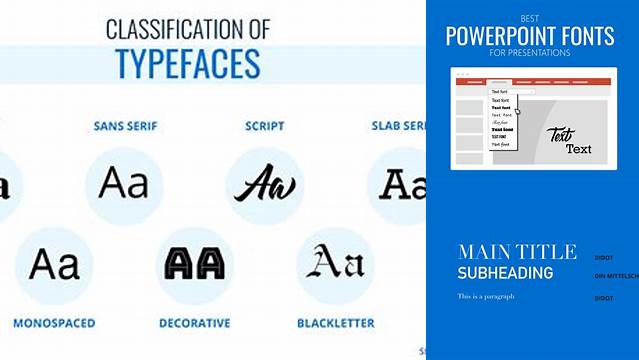
Top PowerPoint Fonts For Presentations In 2025
Best Fonts for PowerPoint Presentations in 2025
Hey everyone! Let's talk about something super important when you're putting together a PowerPoint: fonts! Choosing the right fonts can seriously make or break your presentation. It's like picking the perfect outfit – it can either make you look totally on point or leave you feeling a bit, well, off. So, in this article, we're diving into the best fonts for PowerPoint presentations in 2025, helping you create slides that are both visually appealing and easy to read. We'll explore a range of fonts, from classic choices to modern gems, ensuring your presentations stand out and grab your audience's attention. The goal? To make your presentations not just informative but also memorable. Let's face it; nobody wants to sit through a boring slide deck with unreadable text. So, whether you're a student, a business professional, or just someone who loves a good presentation, this guide is for you. We'll cover everything from font pairings to readability tips, giving you the tools you need to make your next PowerPoint a total success. Get ready to transform your presentations from blah to brilliant!
Understanding the Importance of Font Choice
First things first, why does font choice even matter, right? Well, imagine going to a party where everyone is dressed in the same boring clothes. It's not very exciting, is it? The same goes for presentations. The best fonts for PowerPoint presentations are not just about aesthetics; they're about communication. A well-chosen font makes your content easier to read and understand, helping your audience stay engaged. Think about it this way: your font is the silent voice that speaks to your audience before you even utter a word. It sets the tone and conveys your message in a split second. A clear and readable font shows you care about your audience and respect their time. A font that's hard to read, on the other hand, can frustrate your viewers and make them lose interest in your content. That's a big no-no! In 2025, with so much visual information bombarding people every day, your presentation needs to stand out. Your font choices can make the difference between a presentation that gets ignored and one that captures attention. It's about creating a visual experience that complements your message and leaves a lasting impression. Remember, the goal is to make your content accessible and enjoyable. When your font choices support this goal, you're setting yourself up for success. So, before you finalize your next presentation, take a moment to consider your fonts. It's a small detail with a big impact.
Classic Fonts That Still Rock
Now, let's get down to the nitty-gritty: the best fonts for PowerPoint presentations that have stood the test of time. These are your tried-and-true options, the fonts you can always rely on to deliver a polished and professional look. First up, we have Arial. Arial is a sans-serif font that's clean, modern, and incredibly versatile. It's a workhorse font, meaning it works well in various contexts, from headlines to body text. Its simplicity makes it easy to read on screen, even at smaller sizes, making it a fantastic choice for PowerPoint. Next, we have Helvetica. Helvetica is another sans-serif font, and it's known for its neutral and clean appearance. It's similar to Arial but often considered slightly more elegant. Like Arial, Helvetica is highly readable and works well for both headlines and body text. It's a great choice if you want a sophisticated yet straightforward look. Then there's Times New Roman. This is a serif font, meaning it has small decorative strokes at the end of each letter. Times New Roman is a classic choice for body text, as the serifs help guide the reader's eye across the page. However, use it with caution for PowerPoint; while it can work, it might not be as readable on screens as a sans-serif font. Finally, let's not forget Calibri. Calibri is a sans-serif font that's the default font in many Microsoft Office applications. It's designed for on-screen readability and has a friendly, modern appearance. Calibri is a safe and reliable choice for any PowerPoint presentation. Remember, these classic fonts are classics for a reason. They're readable, versatile, and always in style. You can't go wrong with any of them!
Modern Fonts to Elevate Your Slides
Okay, let's move on to the best fonts for PowerPoint presentations that bring a more contemporary feel to your slides. If you want your presentation to feel fresh and up-to-date, these are the fonts for you. First on our list is Lato. Lato is a sans-serif font with a warm, friendly feel. It's highly readable, even on digital screens, and looks great in both headlines and body text. Lato is a great choice if you want a modern but approachable look. Then we have Open Sans. Open Sans is another sans-serif font, known for its readability and versatility. It's designed to be clear and legible on various screen sizes and resolutions, making it perfect for PowerPoint. It's a great option if you want a clean, minimalist look. Next, let's look at Montserrat. Montserrat is a sans-serif font inspired by the urban typography of the Montserrat neighborhood in Buenos Aires. It has a geometric design that gives it a modern and stylish look. Montserrat works well for headlines and short text blocks, adding a touch of personality to your presentation. Finally, we have Raleway. Raleway is an elegant sans-serif font with a thin weight, giving it a sophisticated and contemporary feel. It's best used for headlines and titles, as its thin strokes might not be as readable in body text. Using these modern fonts is a great way to make your presentation stand out from the crowd. They add a touch of personality and style, making your slides more memorable.
Font Pairing: Creating Visual Harmony
Now, here's a pro tip: it's not just about choosing the best fonts for PowerPoint presentations individually; it's about how they work together! This is where font pairing comes in. Font pairing is the art of selecting fonts that complement each other, creating a visually harmonious and balanced presentation. The goal is to create a design that's both easy to read and pleasing to the eye. A well-executed font pairing can significantly enhance the overall look and feel of your presentation. There are a few key principles to keep in mind when font pairing. First, consider the contrast. Choose fonts with different characteristics to make your text stand out. For example, pairing a bold sans-serif font for headlines with a more delicate serif font for body text can create an excellent contrast. Next, think about the fonts' personalities. Do they convey a similar mood and style? Avoid pairing fonts that clash or compete with each other. Instead, select fonts that complement each other, reinforcing your message. Keep it simple. You don't need to use tons of different fonts in your presentation. In fact, using too many fonts can make your slides look cluttered and unprofessional. Stick to a few fonts, typically two or three, to maintain consistency and visual appeal. Some great font pairing examples include Arial with Times New Roman, Open Sans with Lato, and Montserrat with Raleway. Experiment and see what works best for your presentation. Font pairing can take your PowerPoint design to the next level. It's a fantastic way to create a cohesive and professional look that will impress your audience.
Readability: The Key to Audience Engagement
We've touched on this a bit, but let's dive deeper into readability. After all, even the best fonts for PowerPoint presentations are useless if your audience can't read them. Readability is about making your text easy and comfortable to read. It's crucial for keeping your audience engaged and ensuring your message gets across. There are several factors that affect readability. First, font size is key. Make sure your text is large enough to be read easily from the back of the room. As a general rule, a minimum font size of 24 points for body text and 32 points for headlines is recommended. Next, consider the contrast between your text and background. High contrast makes text easier to read. Avoid using light text on a light background or dark text on a dark background. Instead, opt for dark text on a light background or light text on a dark background. Another factor is the space between your lines of text, often called leading. Adequate leading makes the text less cluttered and easier to follow. Ensure there's enough space between your lines of text, typically around 1.15 to 1.5 times the font size. Pay attention to the length of your lines of text. Lines that are too long can be difficult to read. Keep your lines relatively short, around 40 to 60 characters per line. And finally, choose fonts that are designed for screen readability. Sans-serif fonts are generally more readable on screens than serif fonts. Make sure your chosen fonts are clear and legible. Readability is not just about the fonts you choose; it's about how you use them. By focusing on these factors, you can significantly improve the readability of your presentations and keep your audience engaged.
Practical Tips for Font Selection
Okay, you've got the basics down, but how do you actually choose the best fonts for PowerPoint presentations for your specific needs? Here's a quick guide with some practical tips to help you out. First, consider your audience. Who are you presenting to? Are they a formal or casual audience? Tailor your font choices to match their expectations and preferences. Next, think about your content. What's the main message of your presentation? Choose fonts that reflect the tone and style of your content. Is it serious and professional, or fun and creative? Experiment with different fonts. PowerPoint has a fantastic library of fonts, so don't be afraid to try out different combinations. Play around with headlines, body text, and other design elements. Get feedback from others. Ask your friends, colleagues, or even family members for their opinions on your font choices. See what looks good to them and make adjustments based on their feedback. Keep it consistent. Once you've chosen your fonts, stick to them throughout your presentation. Consistency in font use creates a polished and professional look. Test your presentation. Before you present, test your slides on different devices and in different environments. Make sure your fonts are readable on all screens. By following these practical tips, you can choose the best fonts for your presentation and create a slideshow that impresses your audience.
Tools and Resources to Help You
Luckily, you're not on your own in this font journey! There are tons of tools and resources to help you choose the best fonts for PowerPoint presentations. Let's explore some helpful options. First, Microsoft PowerPoint itself is a great resource. It has a wide selection of fonts already installed and provides easy-to-use tools for formatting your text. You can also download and install additional fonts from various sources. Next, Google Fonts is a free and open-source font library with hundreds of high-quality fonts that are perfect for PowerPoint. They're all web-safe and easy to use. Another helpful tool is Adobe Fonts (formerly Typekit). If you have an Adobe Creative Cloud subscription, you have access to a vast library of fonts. These fonts are of excellent quality and can be easily integrated into your presentations. Websites like FontPair and Typewolf are great resources for font pairing ideas. They offer pre-designed font combinations, saving you time and effort. Look at online design communities like Behance and Dribbble. They're filled with design inspiration. You can get ideas for font choices and overall presentation styles. Using these tools and resources will help you choose the best fonts for your presentations. They make the font selection process easier and more fun.
Conclusion: Create Presentations That Impress
So, there you have it, guys! We've covered the best fonts for PowerPoint presentations in 2025, from classic choices to modern gems. Remember, the key is to choose fonts that are readable, visually appealing, and consistent with your message. By understanding the importance of font choice, considering readability, and using the right tools and resources, you can create presentations that capture your audience's attention and leave a lasting impression. Don't be afraid to experiment with different fonts and styles. Have fun with it! Your font choices are an important part of your overall design. They can make or break your presentation. Embrace these tips, and your presentations will surely stand out in 2025 and beyond. Now go forth and create some killer slides!